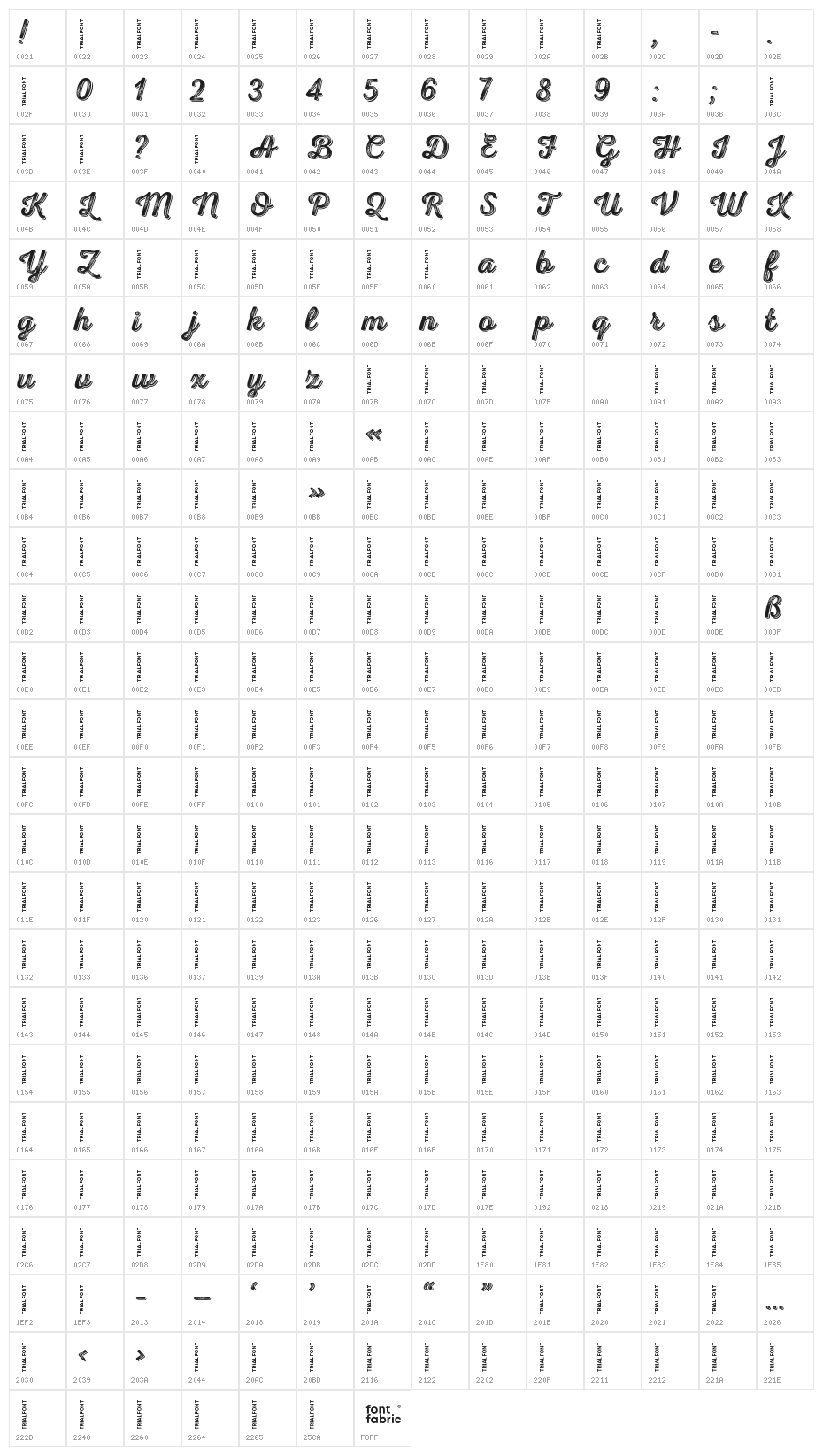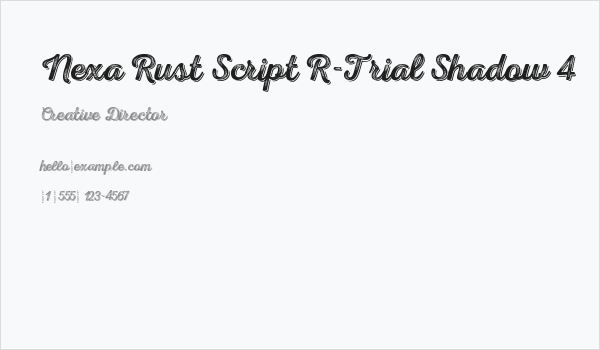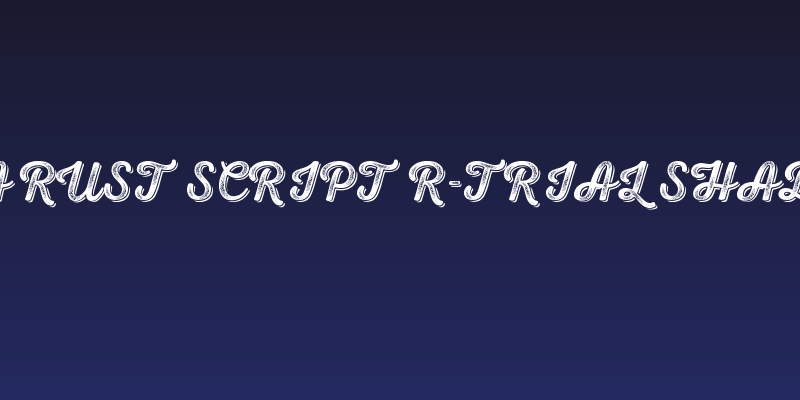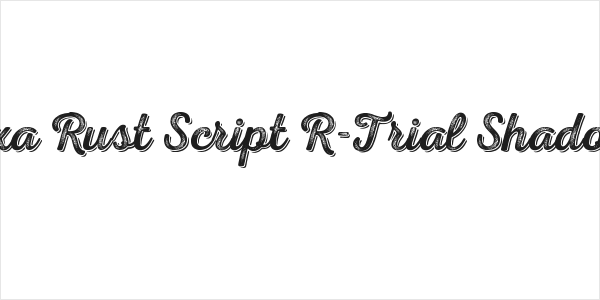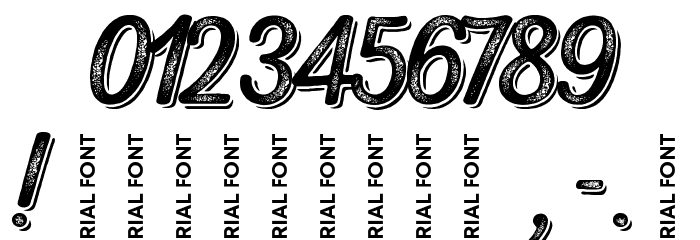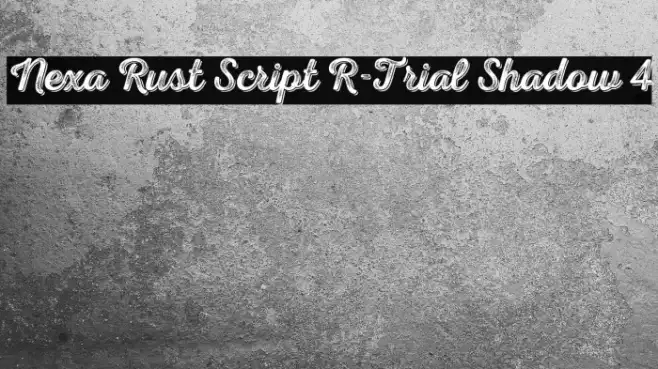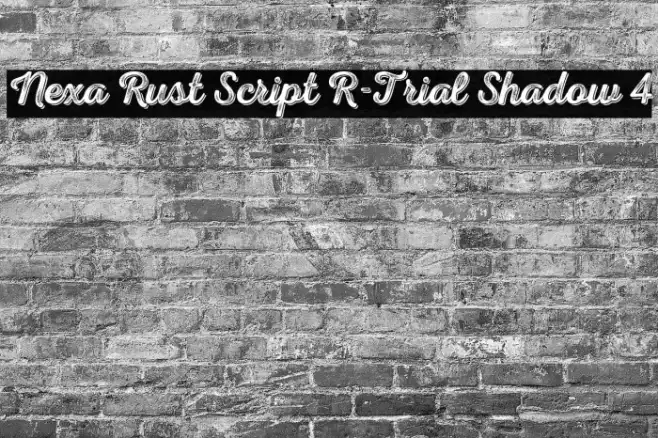
Nexa Rust Script R-Trial Shadow 4 Font
Nexa Rust Script R-Trial Shadow 4 Description
This font features a bold and dynamic script style with a shadow effect that adds depth and dimension. The characters are interconnected, creating a flowing and cohesive look. The texture within the letters gives it a rustic and handcrafted feel, making it stand out as a unique and artistic choice. The uppercase and lowercase letters maintain a consistent style, with swashes and curves that enhance its decorative appeal. Numbers and special characters are designed with the same attention to detail, ensuring a uniform appearance across all elements.
| Proposed Projects | Ideal for branding projects, logo design, packaging, and invitations where a distinctive and artistic touch is desired. |